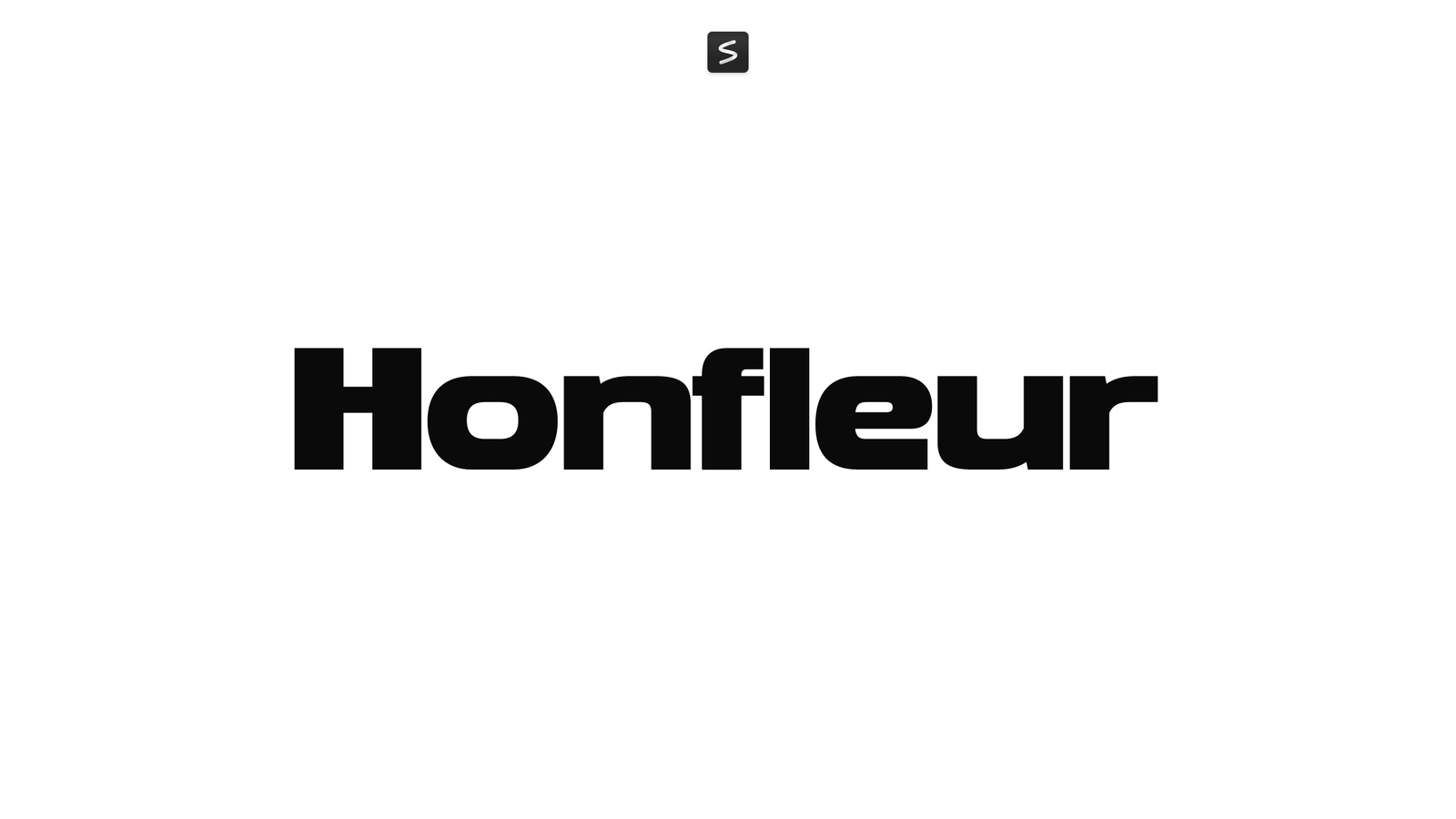
Honfleur is a wide, geometric display typeface designed by Typodermic Fonts. Inspired by 1930s design, it pairs clean structure with softened corners and open forms, creating a refined, modern presence without any stiffness.
The letterforms have generous proportions and breathing room, making it feel confident rather than aggressive. Its calm geometry works well in headlines, signage, packaging, and editorial layouts where you need sophistication with restraint.
Honfleur is a solid choice for branding, book covers, posters, and any project that calls for elegance with an understated touch.